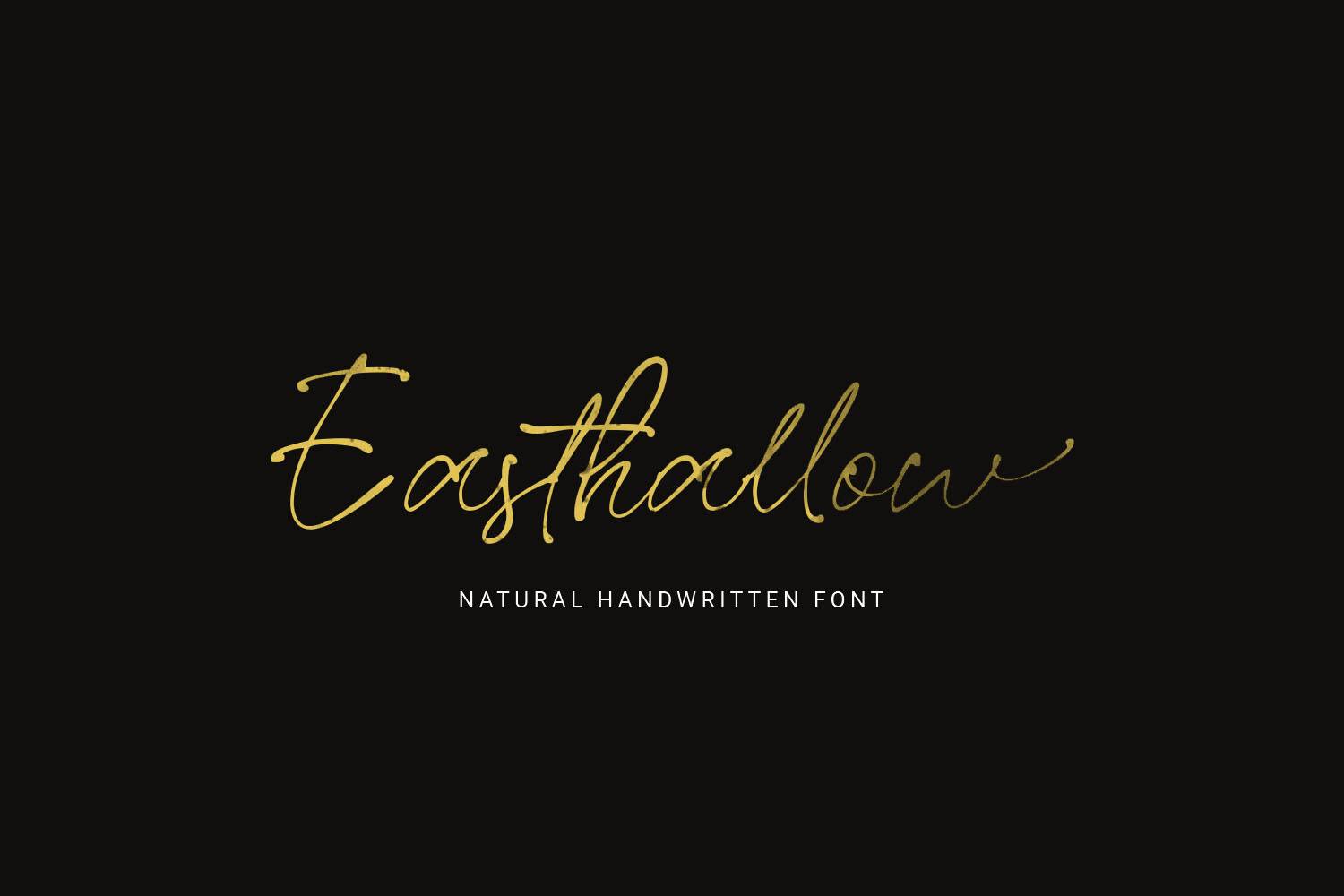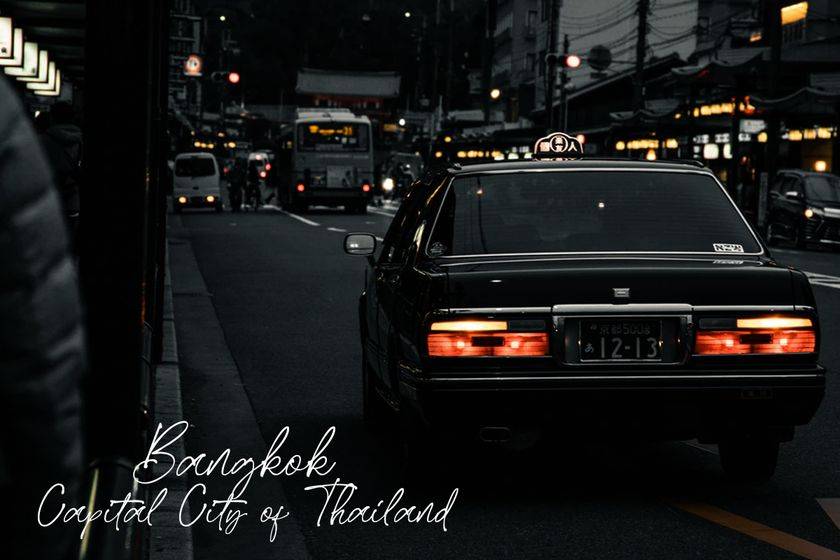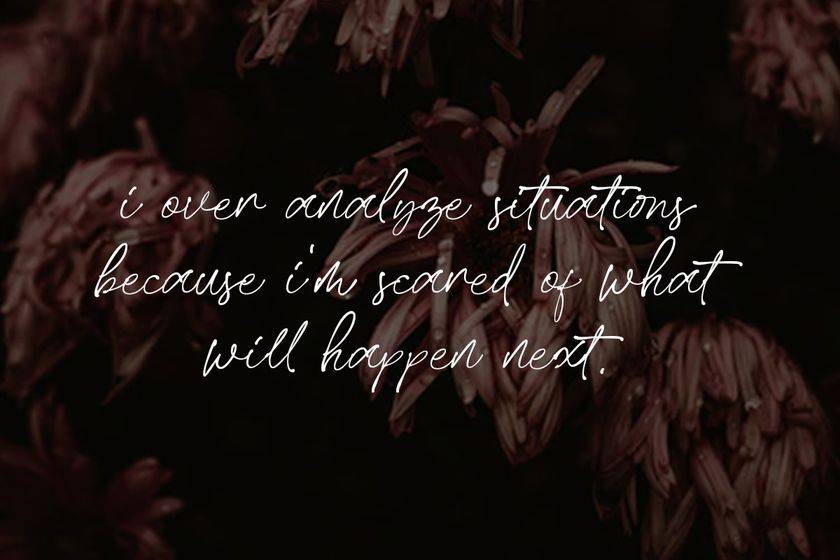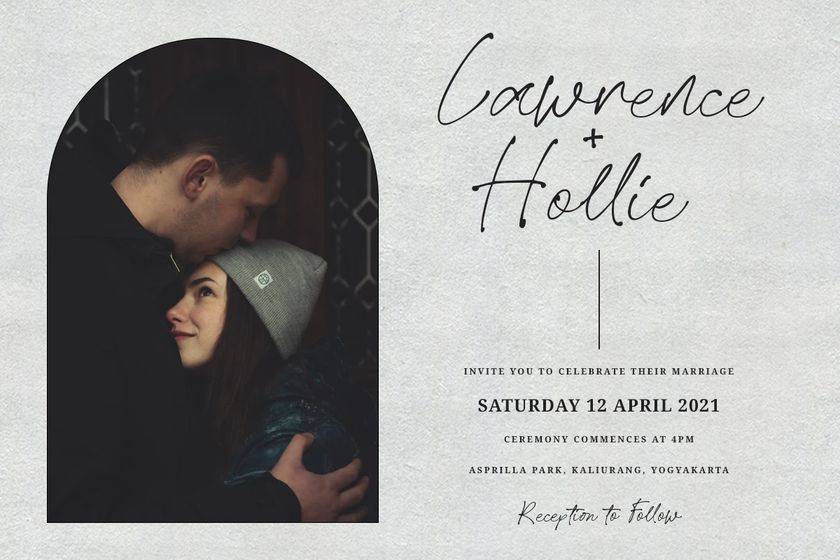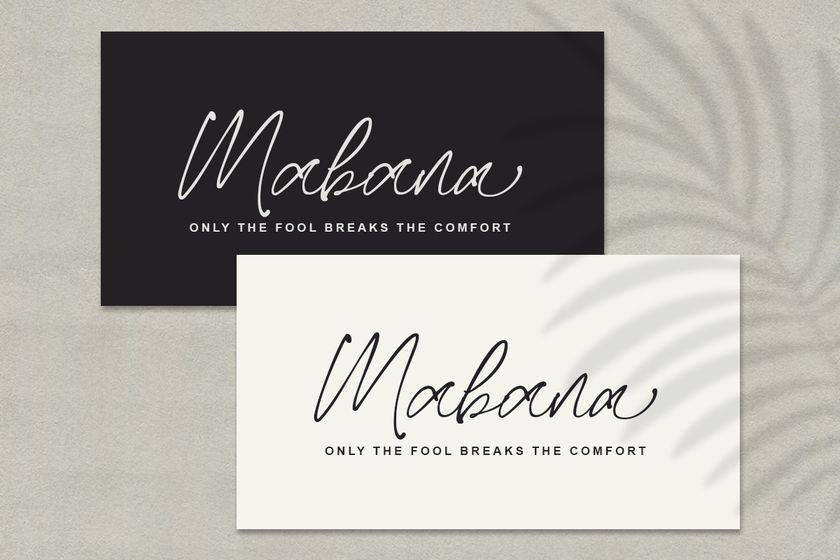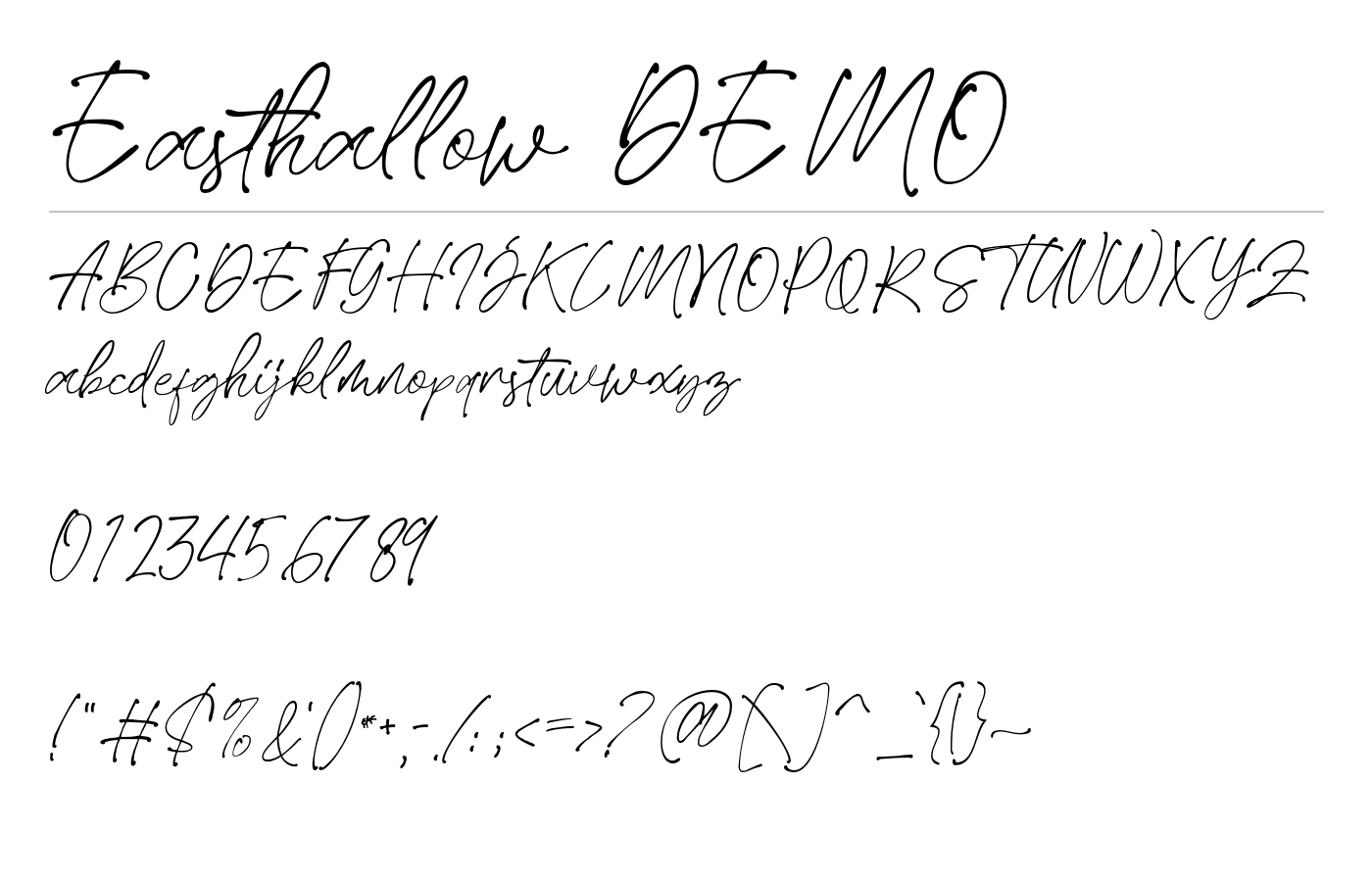
Easthallow is a delicate handwritten font with a slender, flowing style that mimics natural cursive writing. Its light weight and airy letterforms give it an elegant yet casual feel, making it ideal for personal branding, invitations, and creative projects that seek a warm, approachable touch. This font shines in settings where a unique, handcrafted look is desired, adding personality and charm without sacrificing legibility.
Easthallow Handwritten Font
About Easthallow Handwritten Font